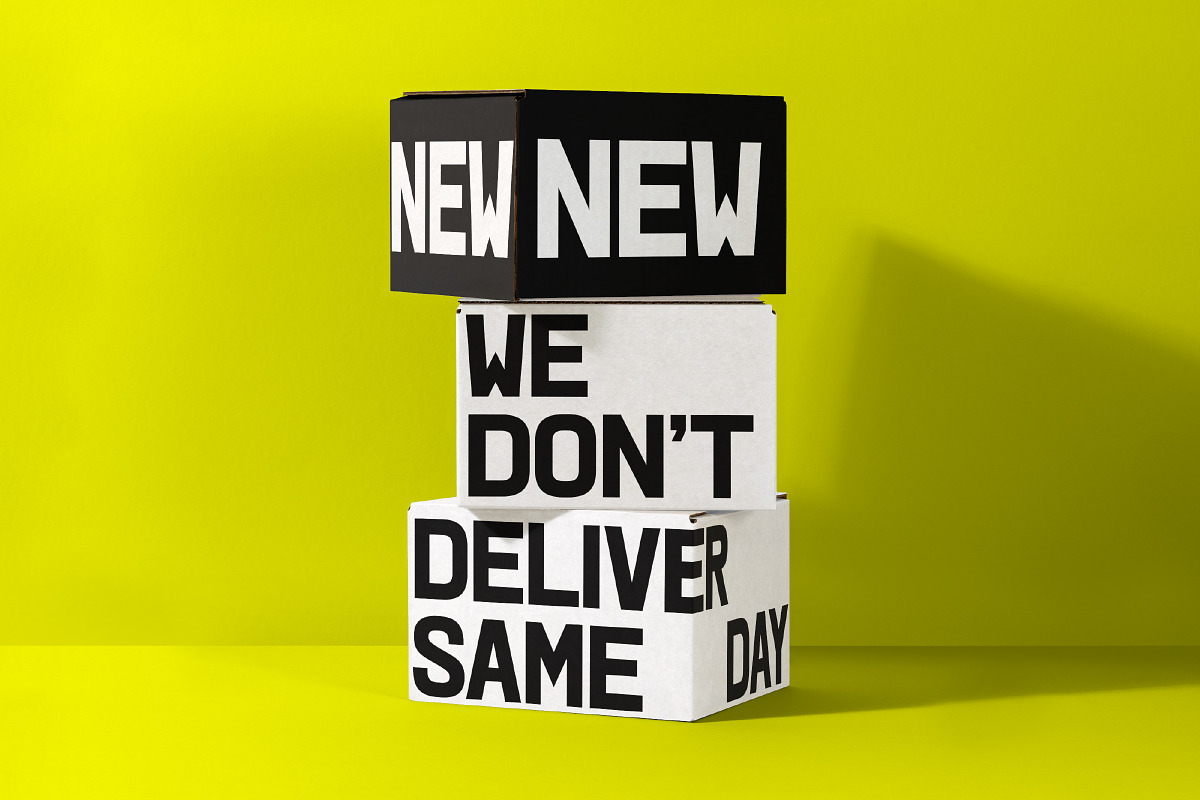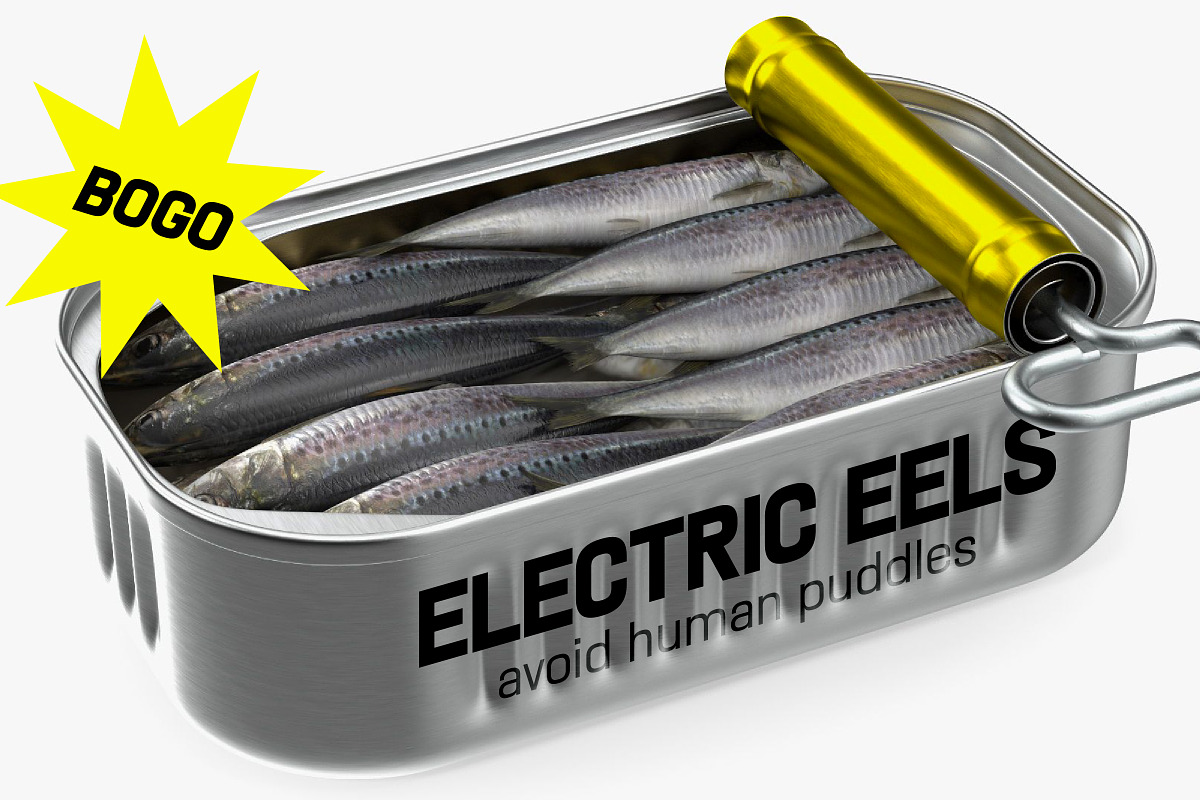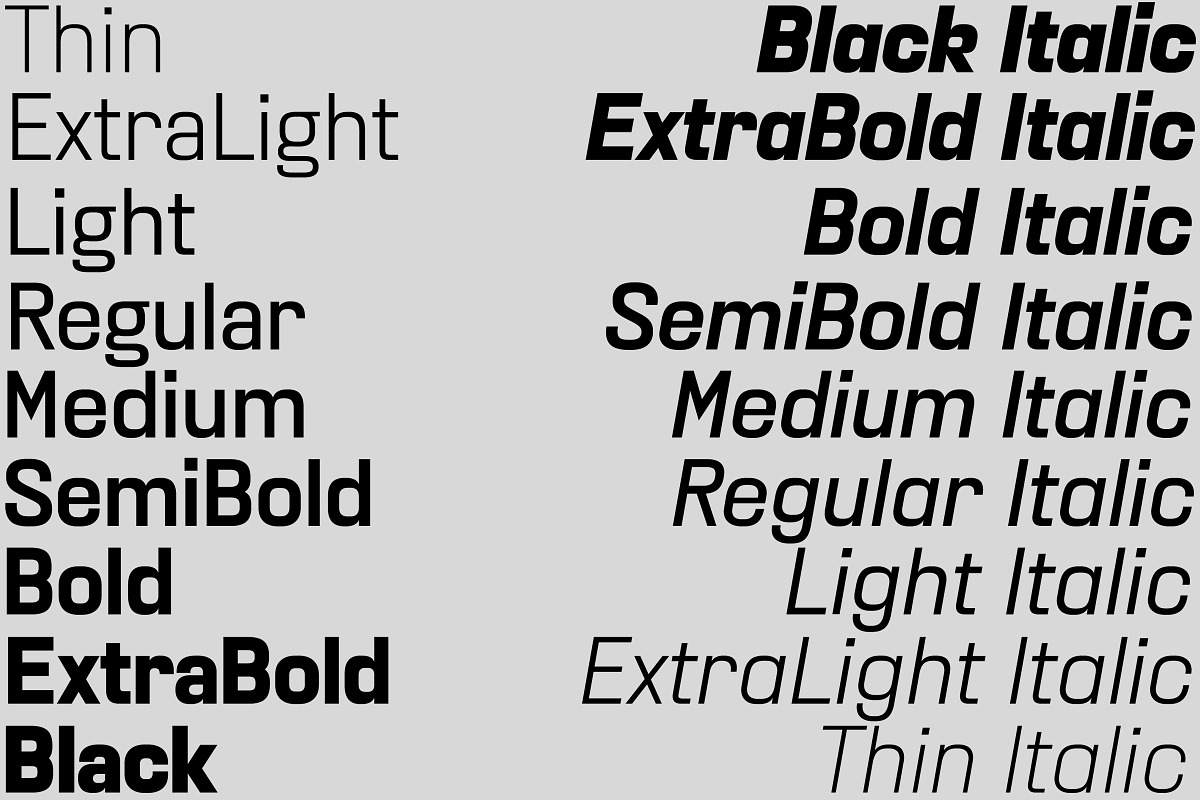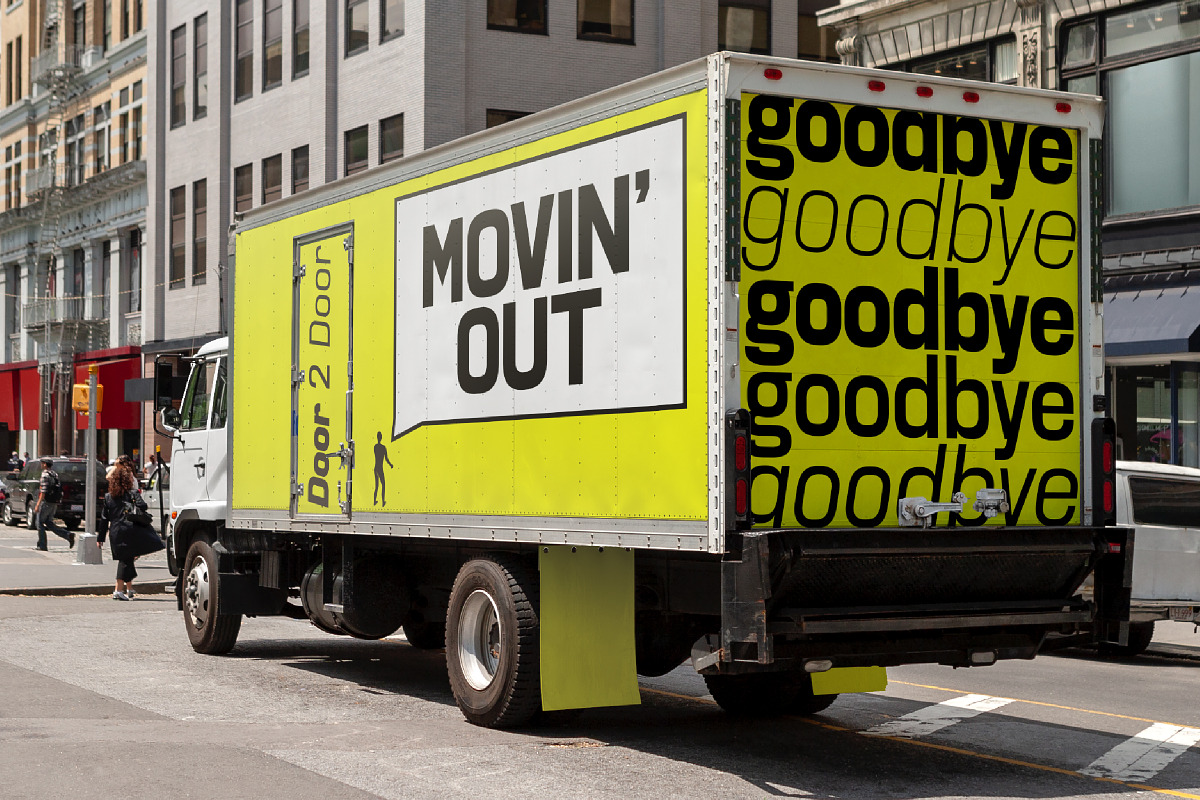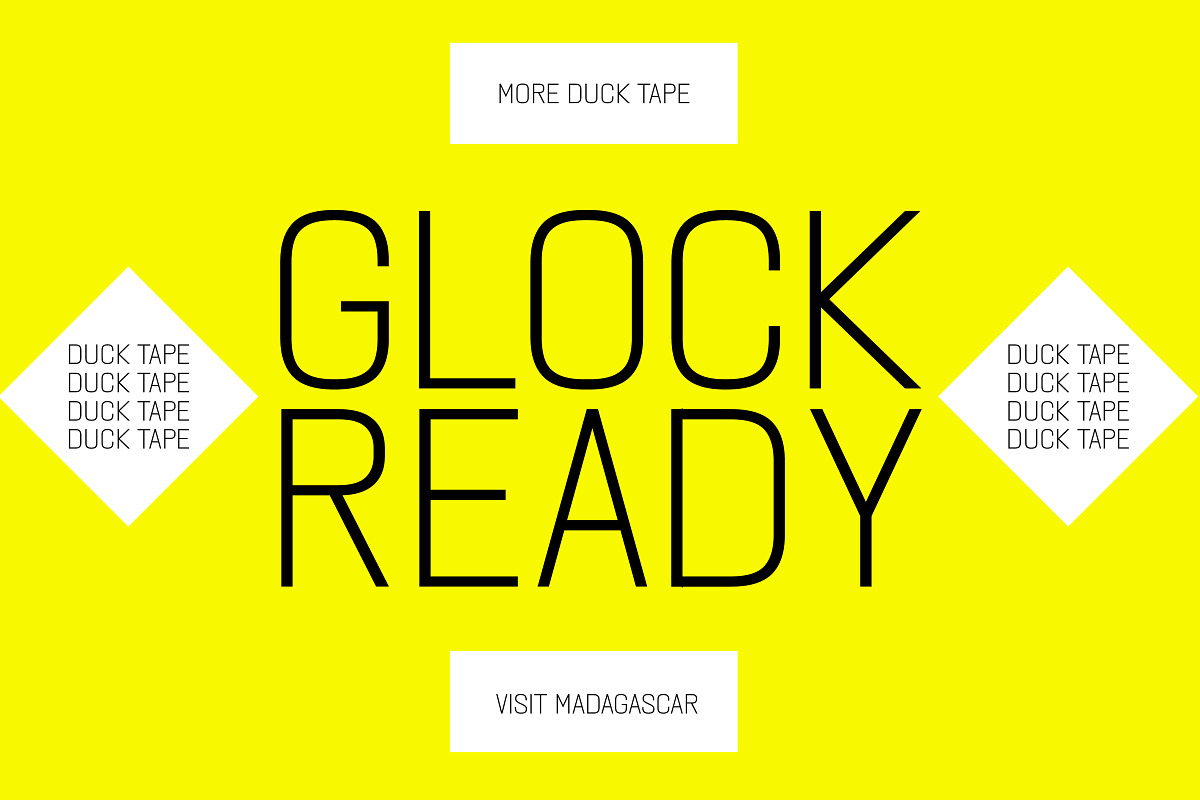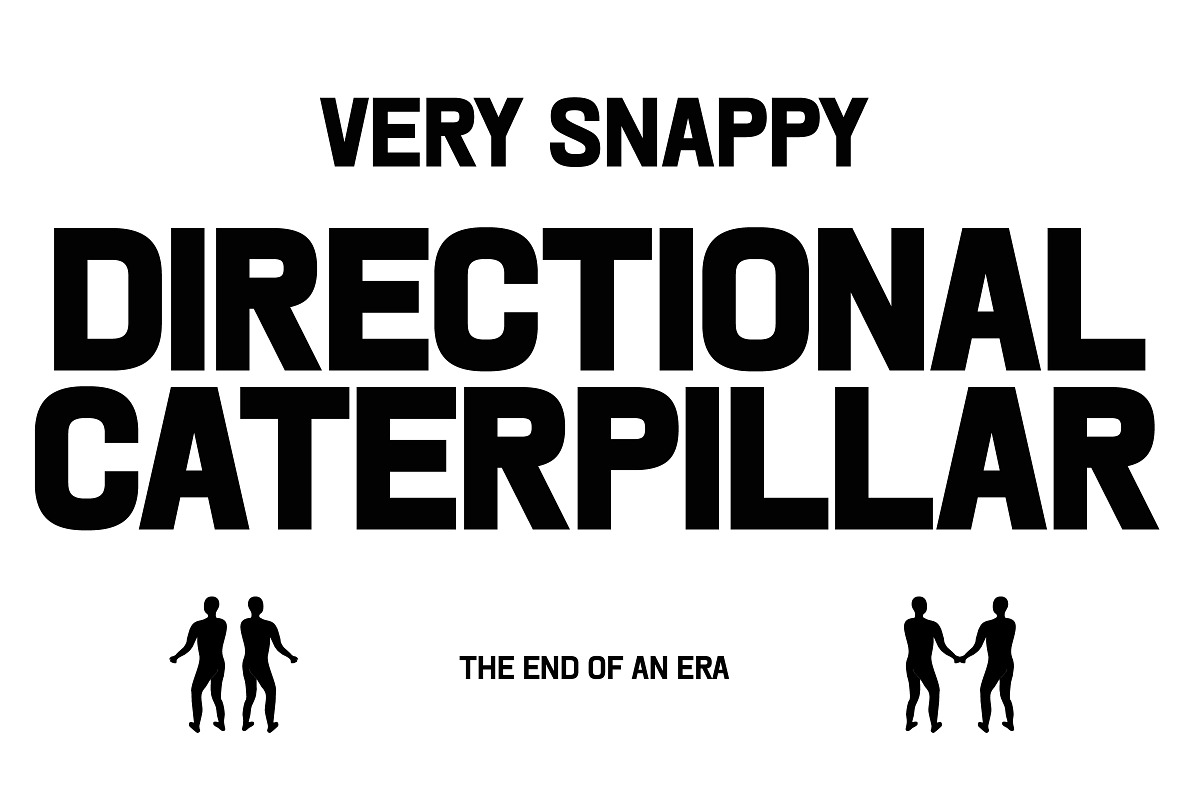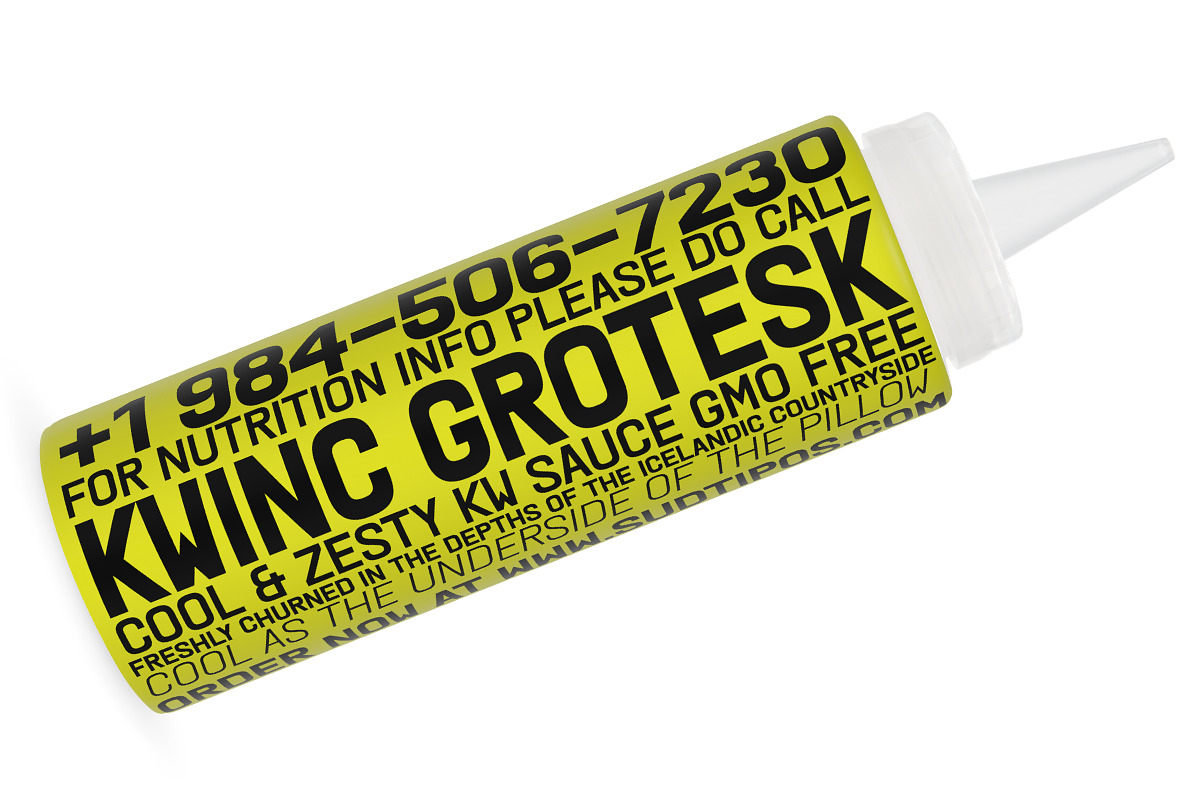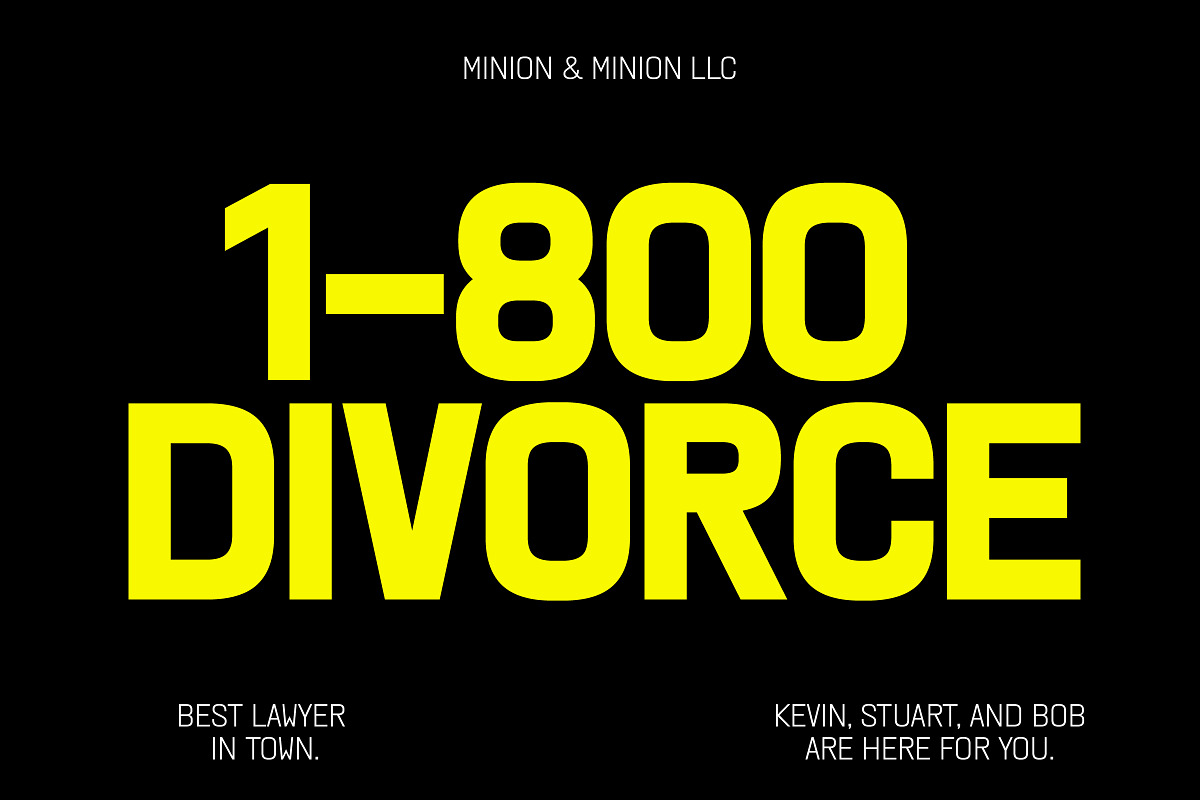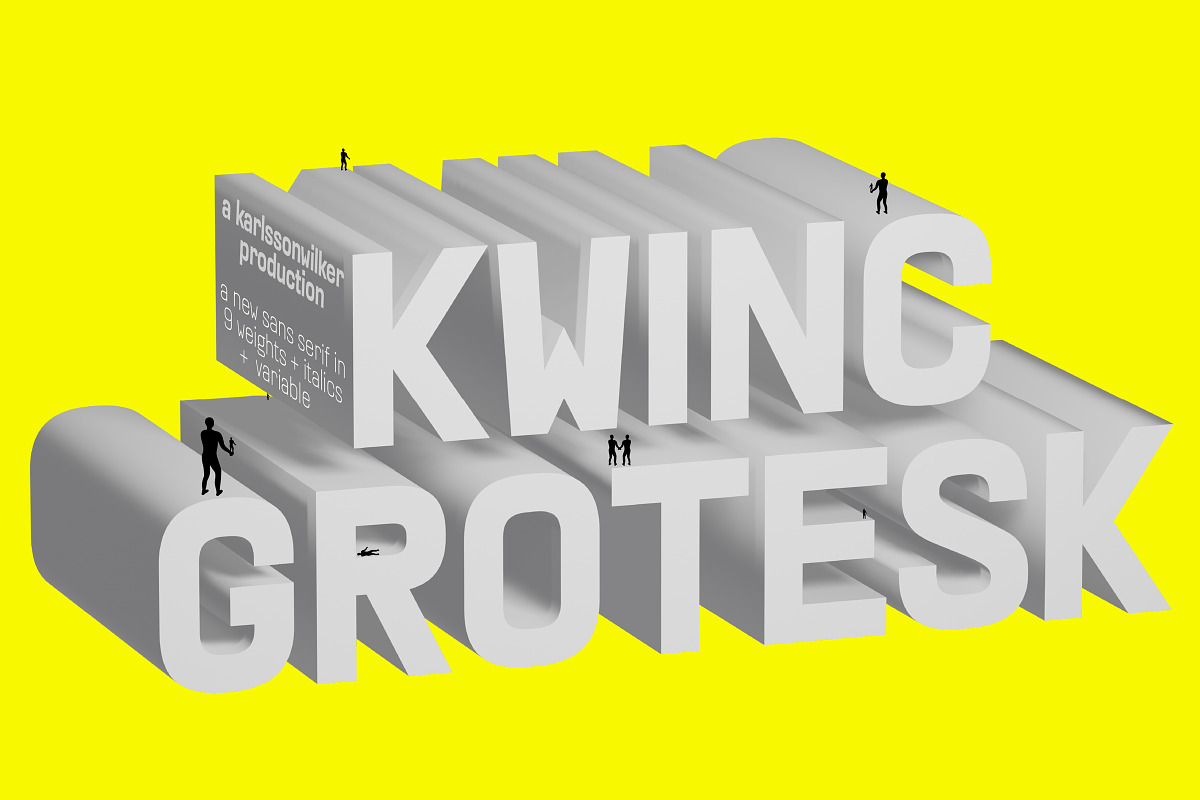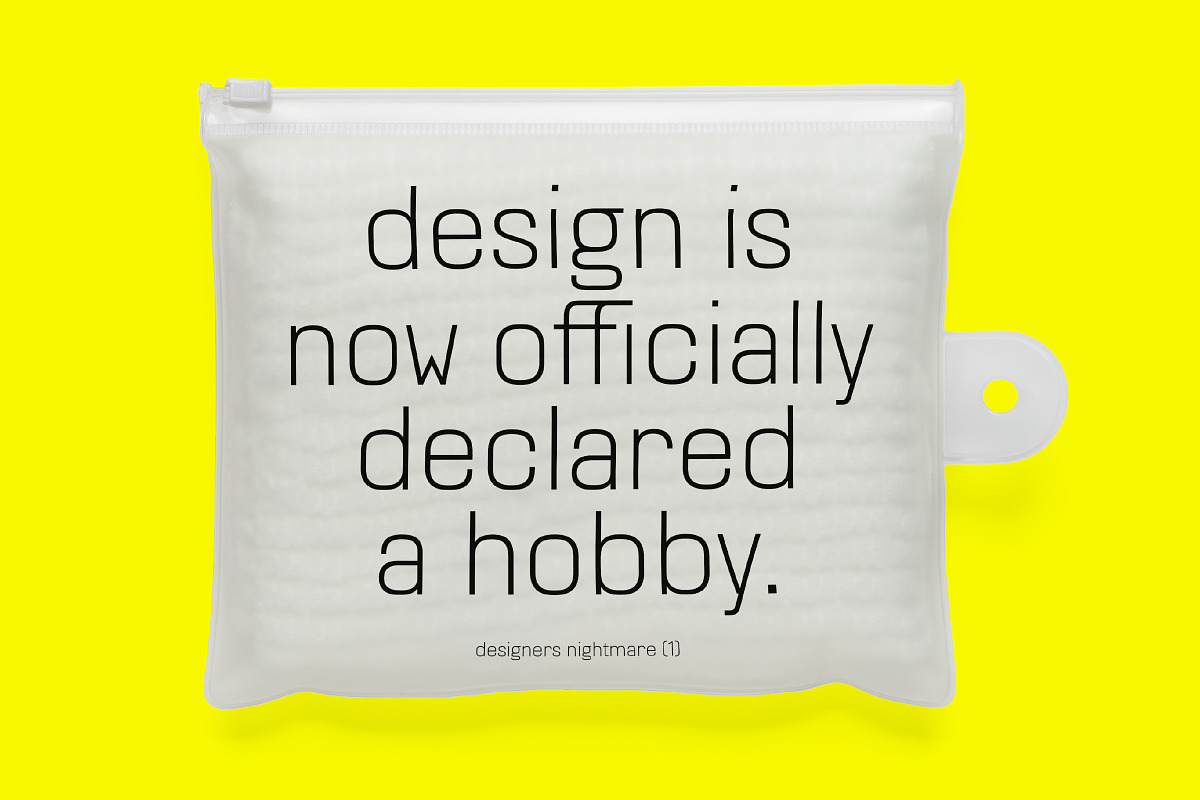
KWINC Grotesk
Designed by karlssonwilker, KWINC Grotesk is loosely inspired by vernacular dimensional letters available in home improvement stores in the US. An expressive collection of uppercase letters, paired with an old-style feature-rich lowercase set, KWINC Grotesk is now available for purchase.
9 weights, italics and variable!